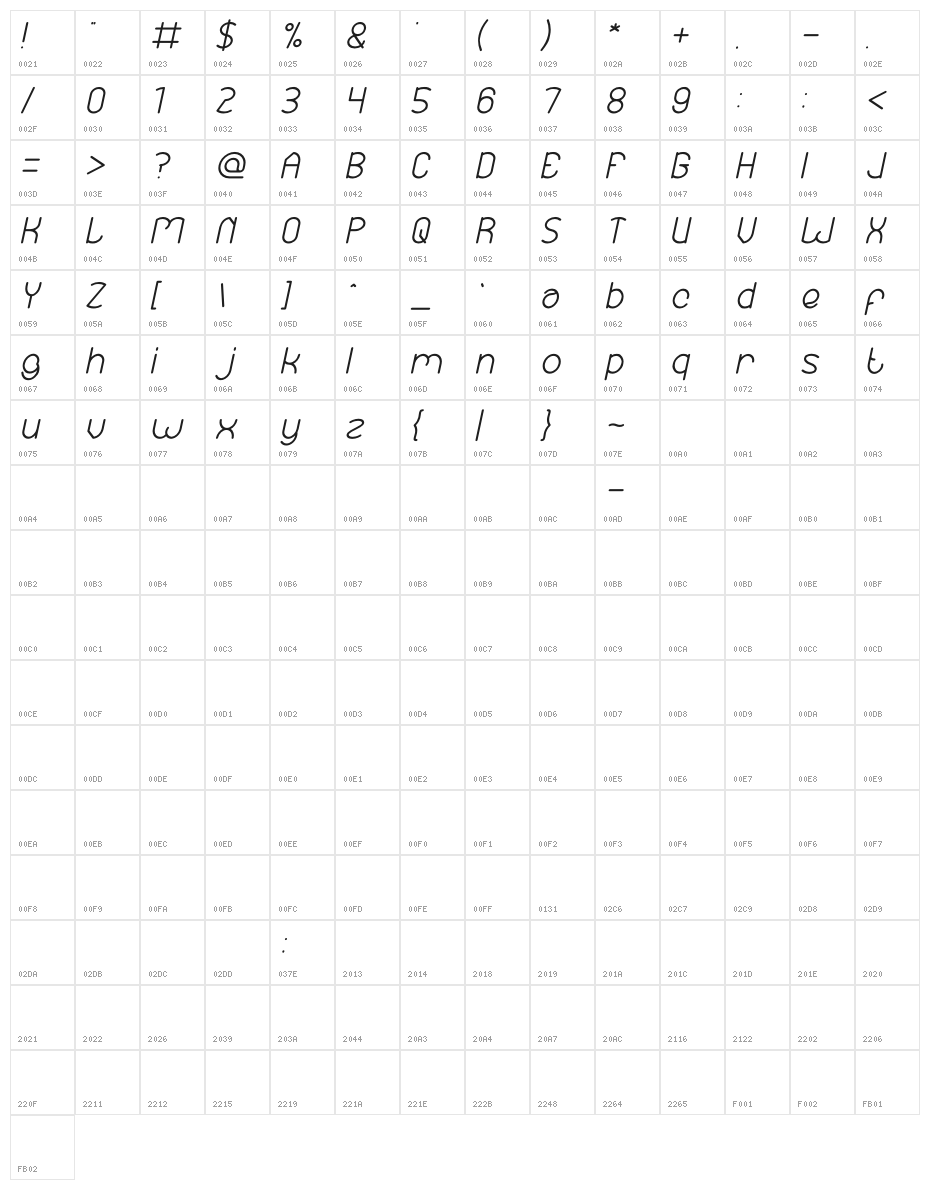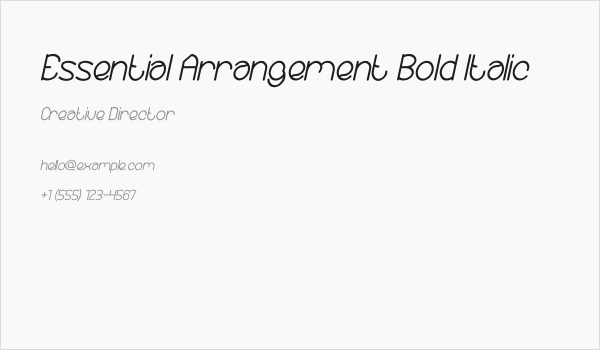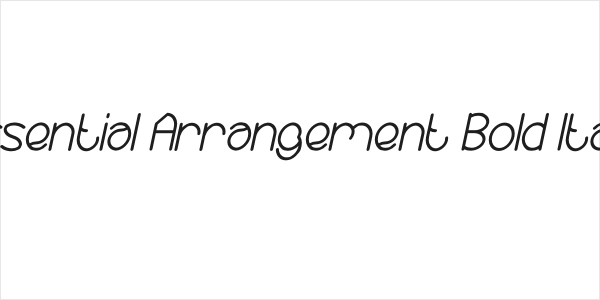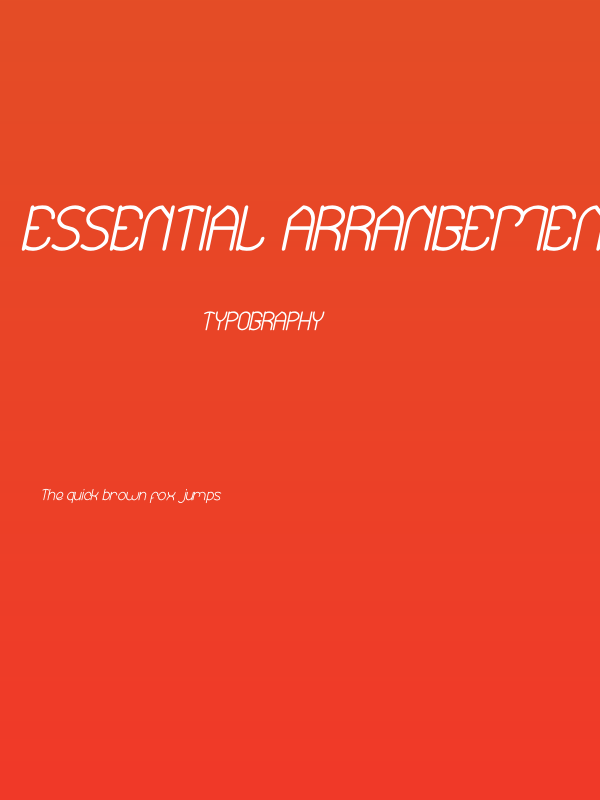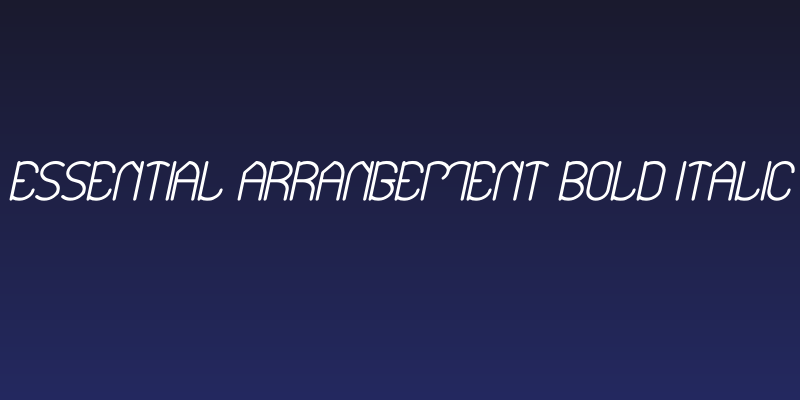
Essential Arrangement Bold Italic Font
Essential Arrangement Bold Italic Description
This font exhibits a modern and sleek design with a bold and italicized style. The characters are slightly elongated, giving them a unique and dynamic appearance. The strokes are consistent in thickness, providing a uniform look across all characters. The uppercase letters are tall and narrow, while the lowercase letters maintain a similar width, creating a cohesive visual flow. The numerals are clear and easy to read, matching the overall aesthetic of the font. Special characters are well-integrated, maintaining the same stylistic elements as the alphanumeric characters. This font's design is both contemporary and versatile, making it suitable for a variety of applications.
| Proposed Projects | Ideal for branding, advertising, and modern web design projects. |